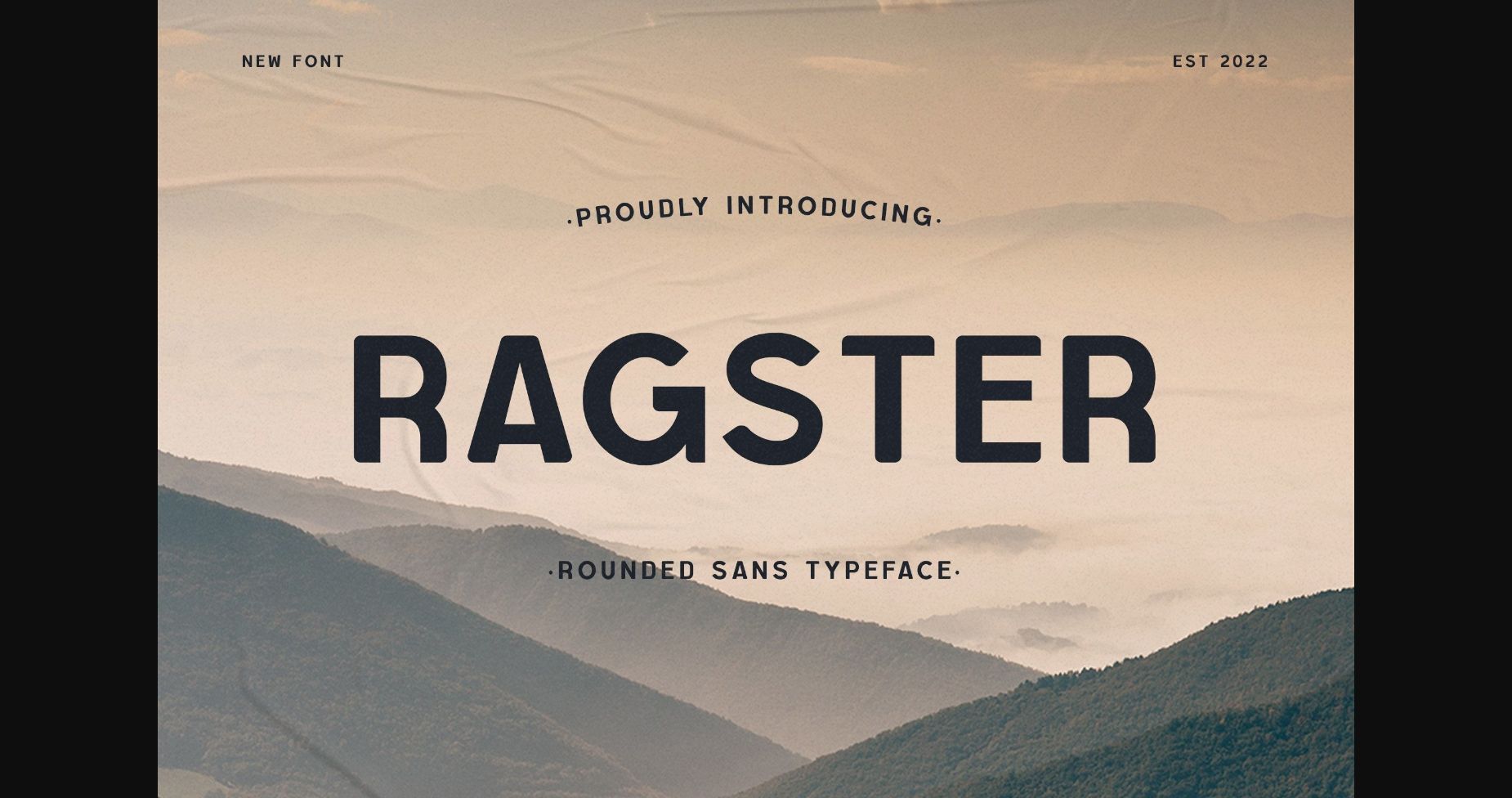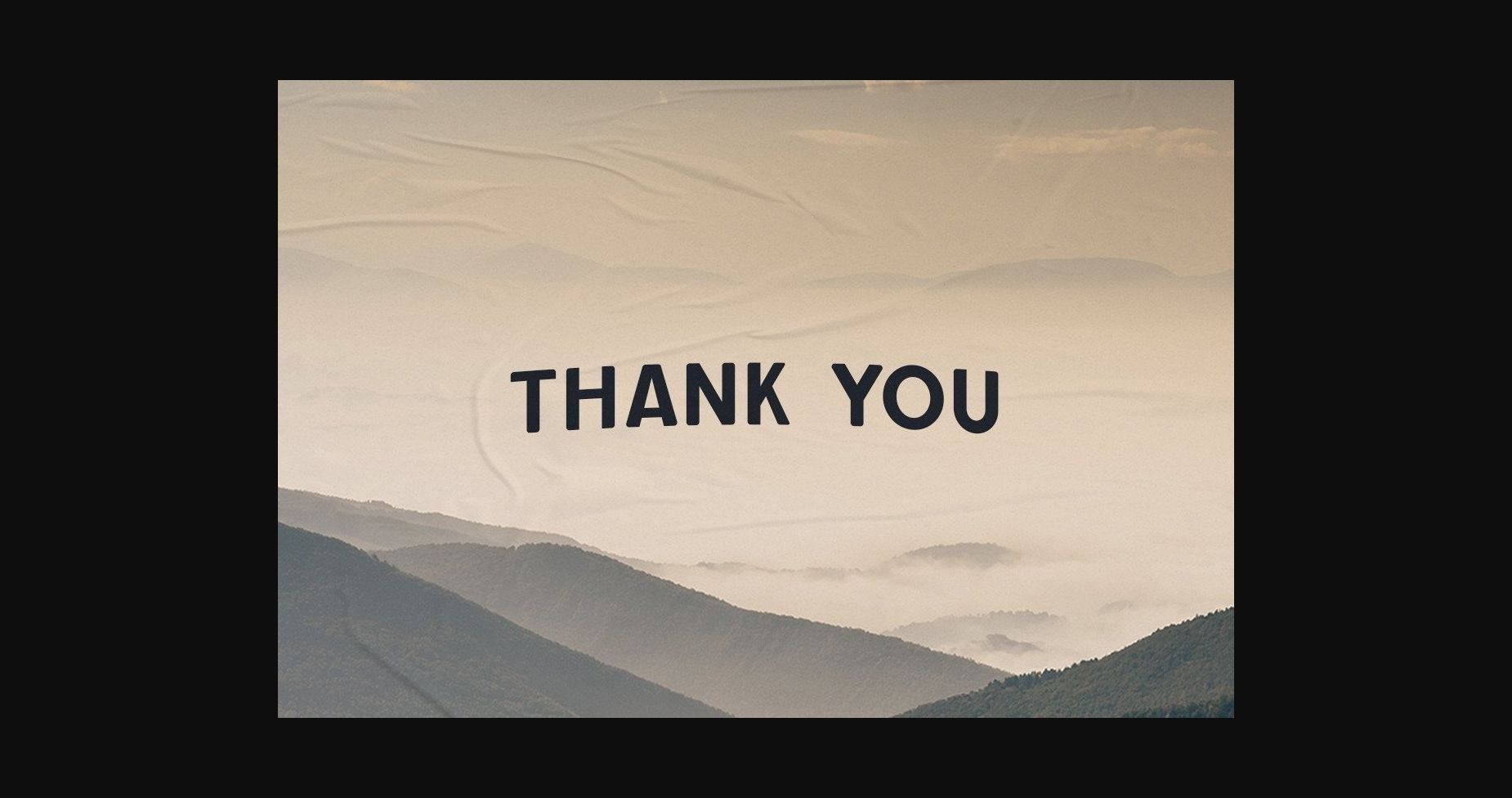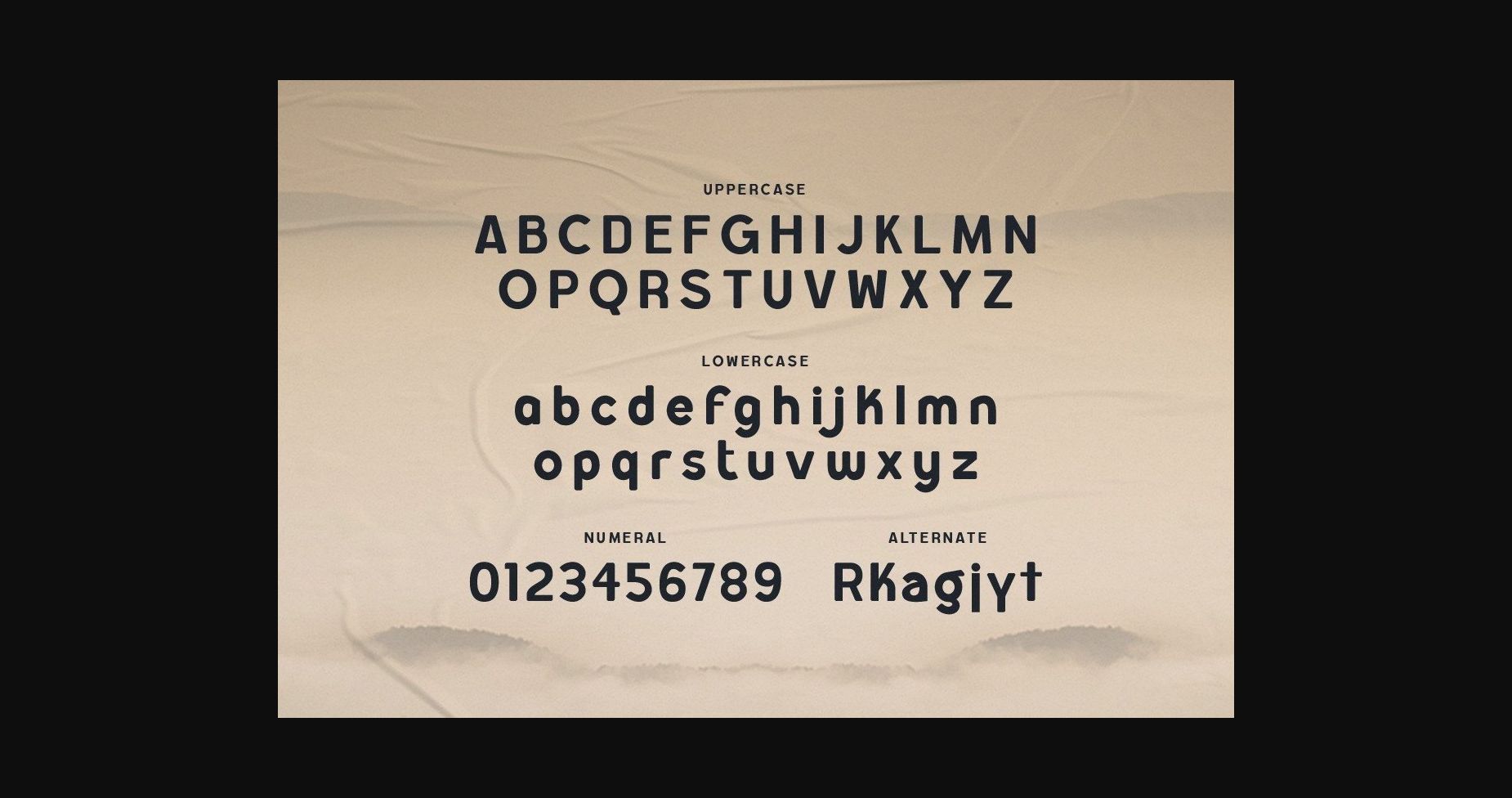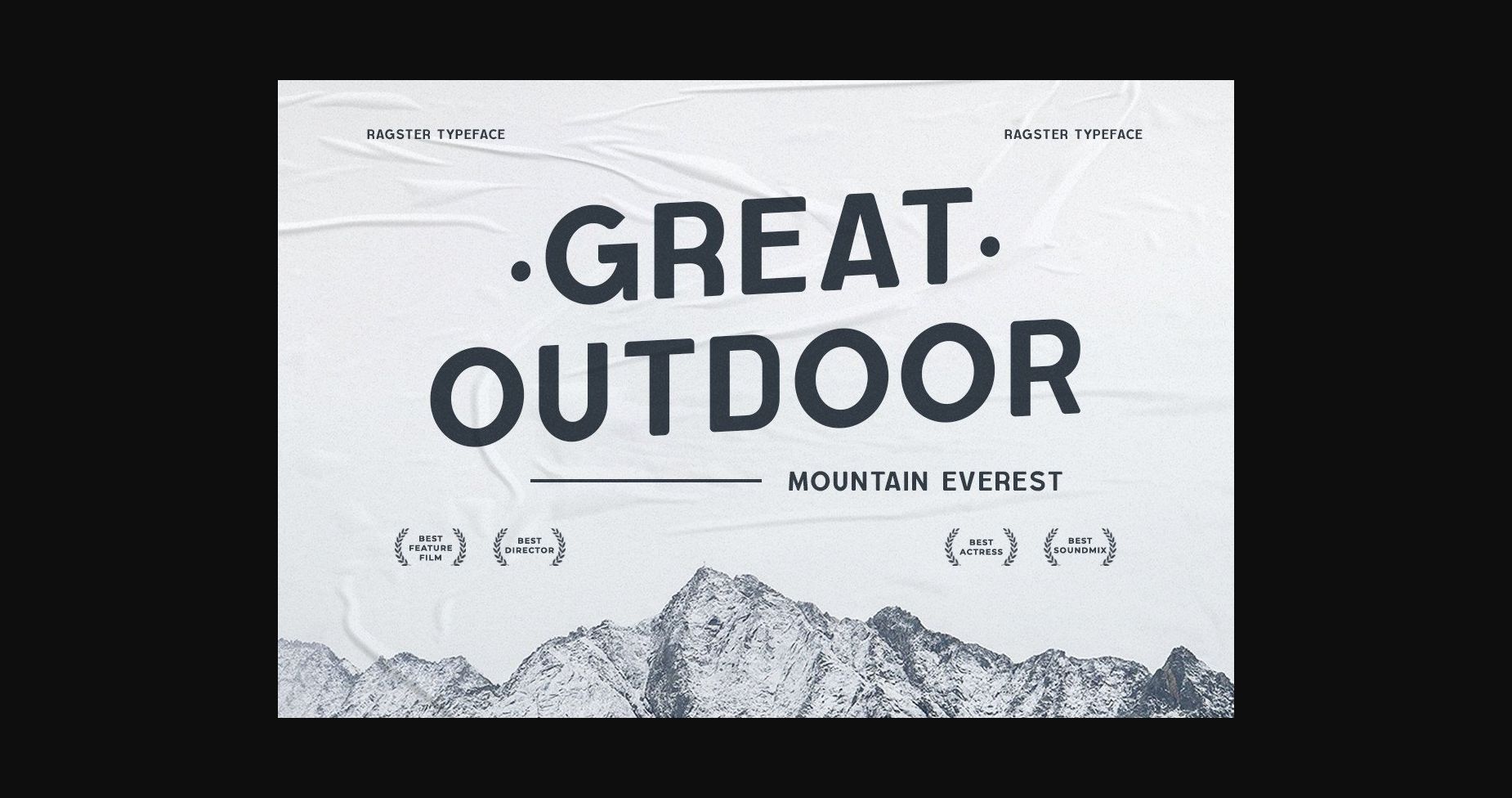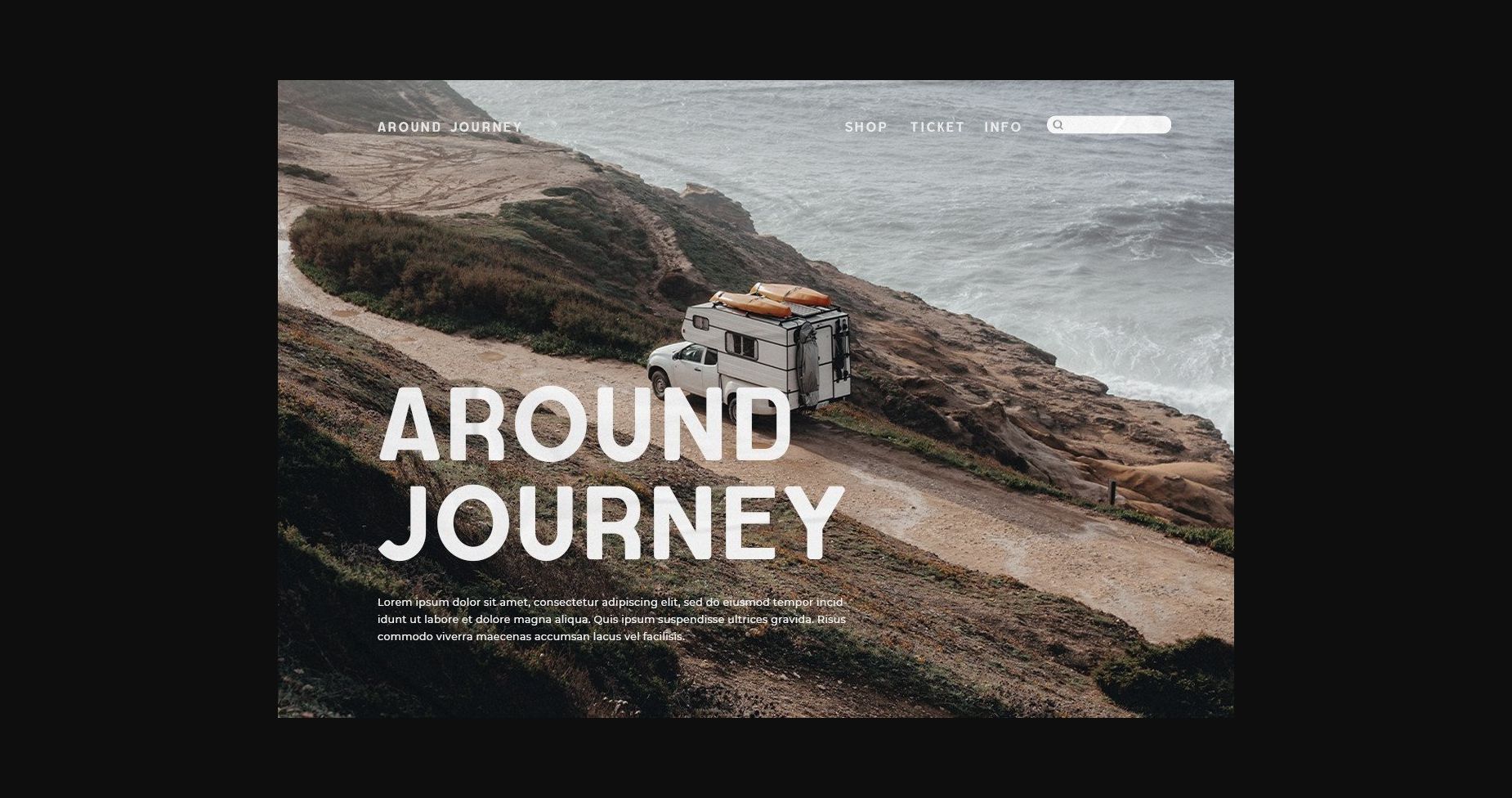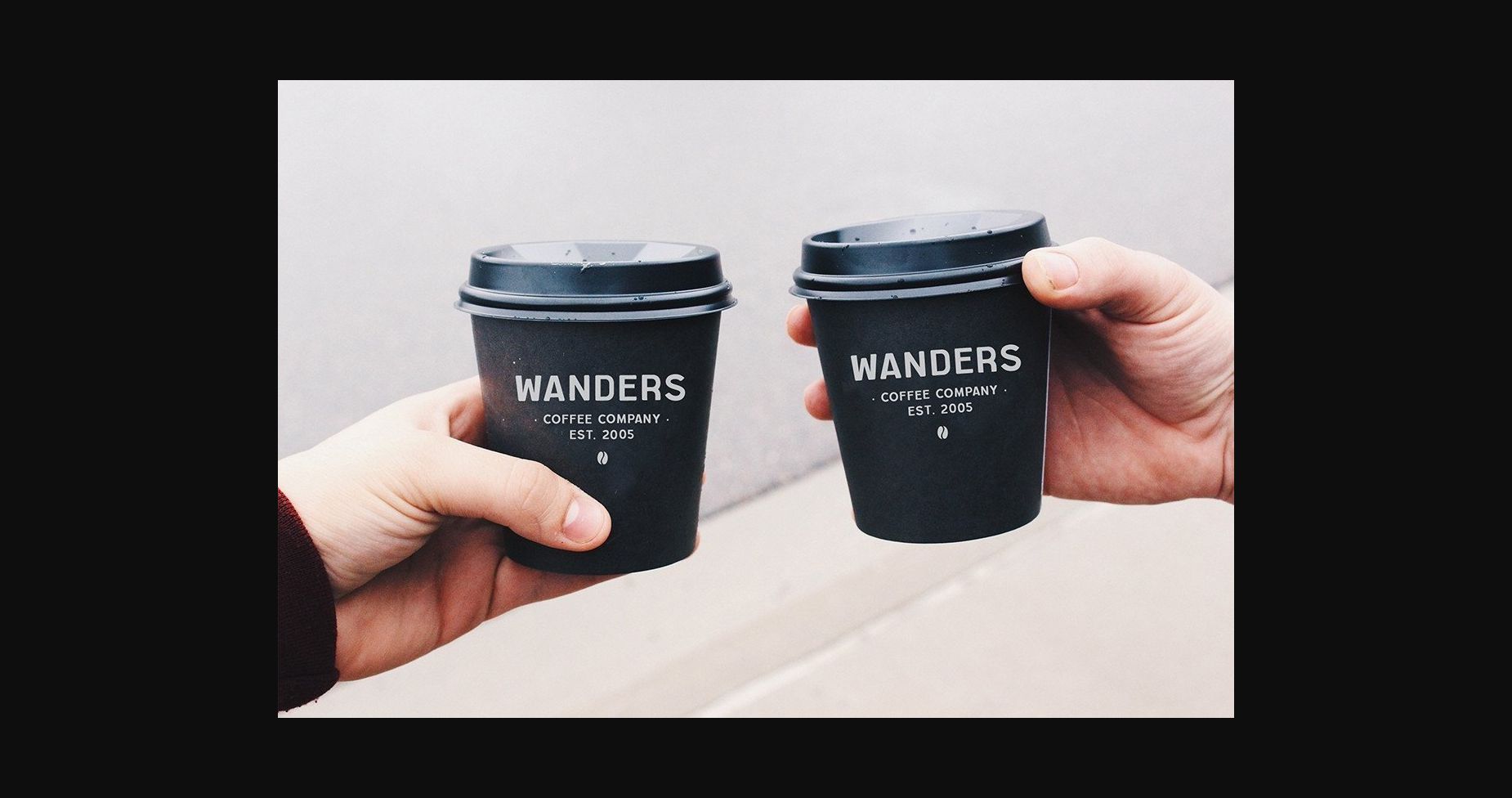
About Ragster Font
Ragster is a rounded Sans font.
It can easily be matched to an incredibly large set of projects, so add it to your creative ideas and notice how it makes them stand out!